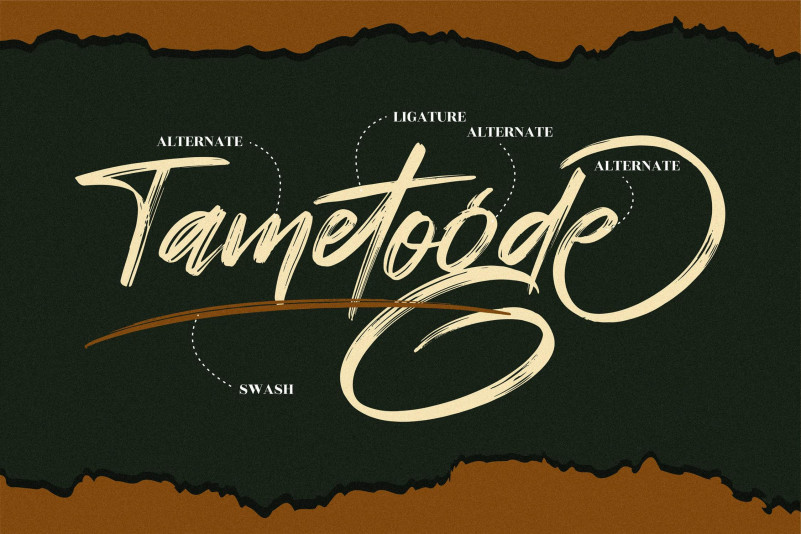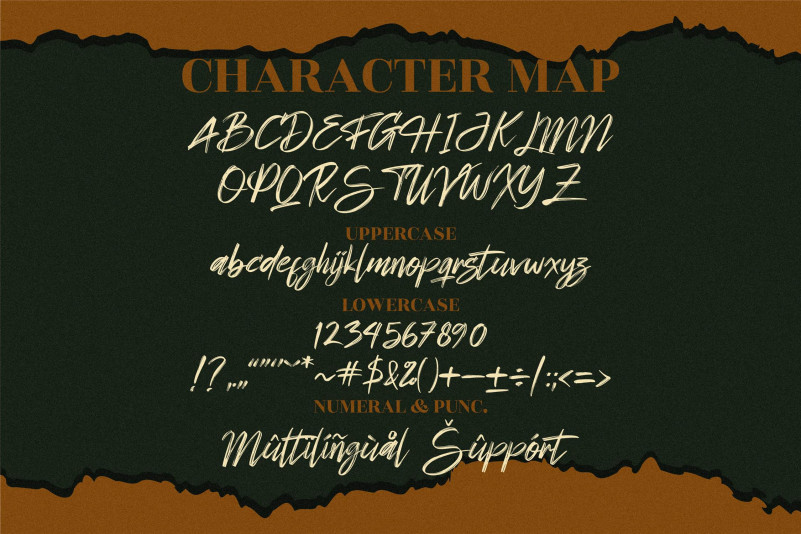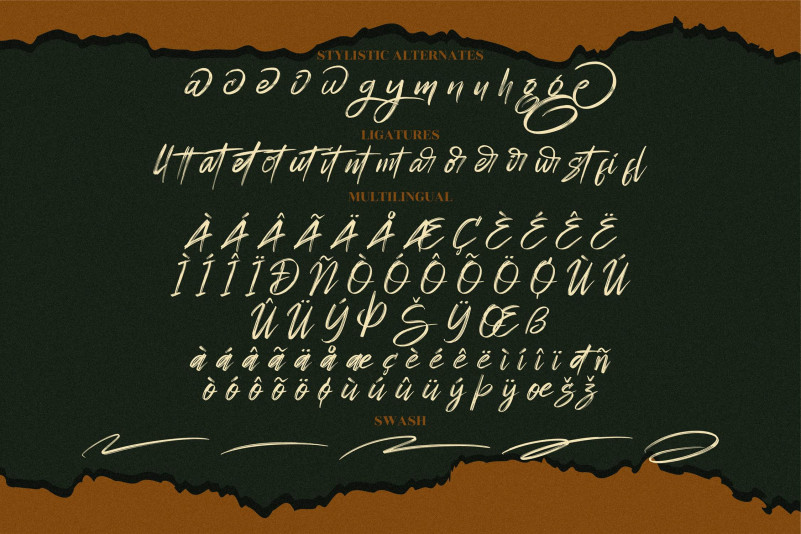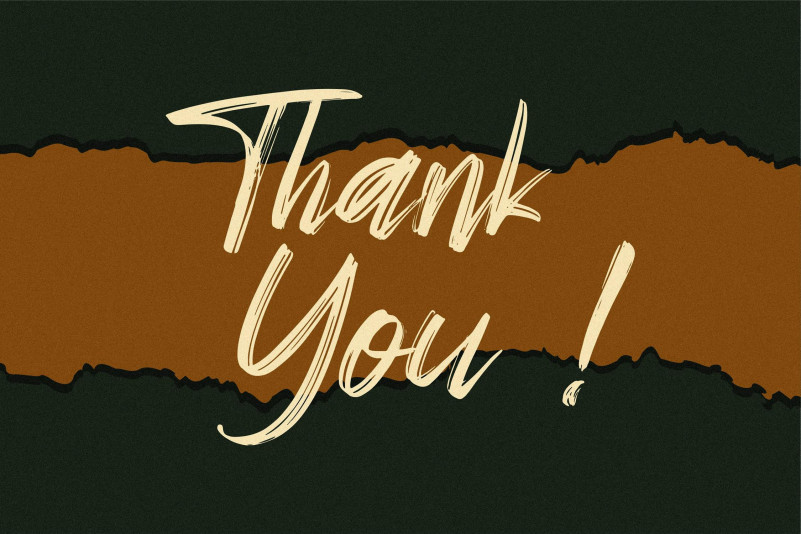
Tametogde Font
Tametogde Brush Font
This is a cursive and bold brushed script font. This font is neatly crafted and highly detailed. Whatever the topic, this font will be a wonderful asset to your font library, as it has the potential to enhance any creation. This font is PUA encoded which means you can access all of the glyphs and swashes with ease!